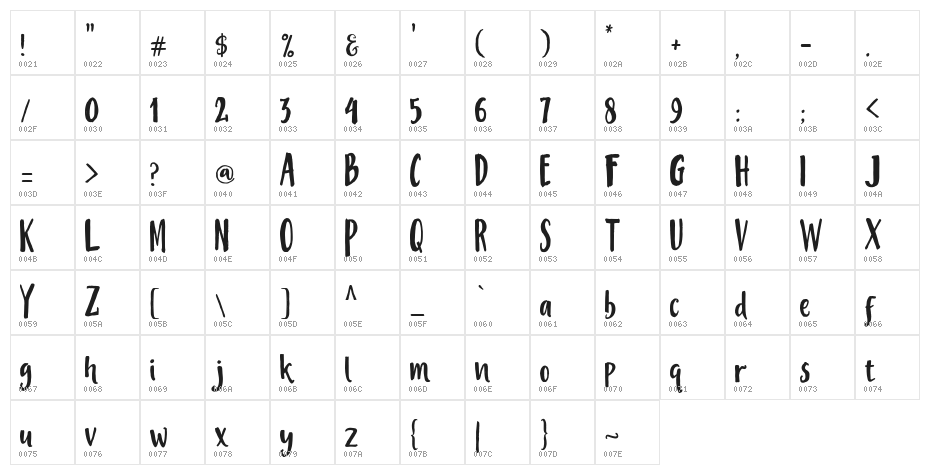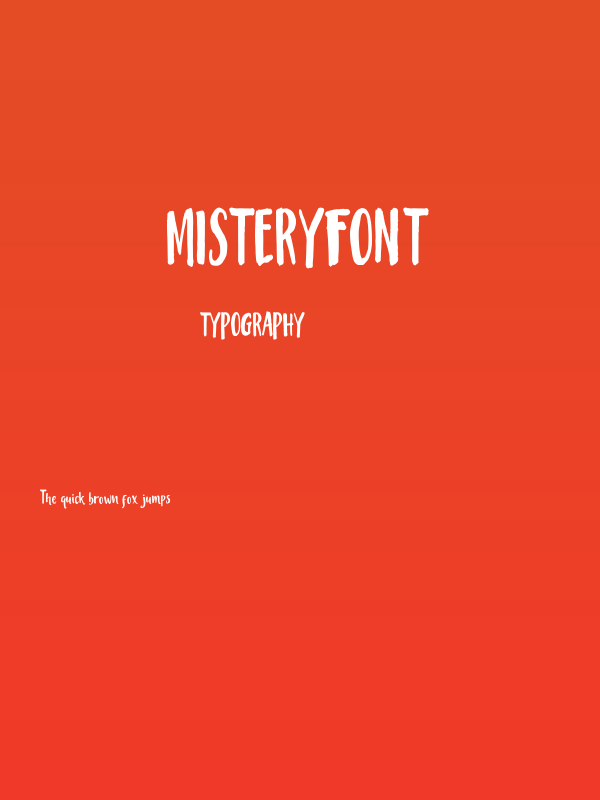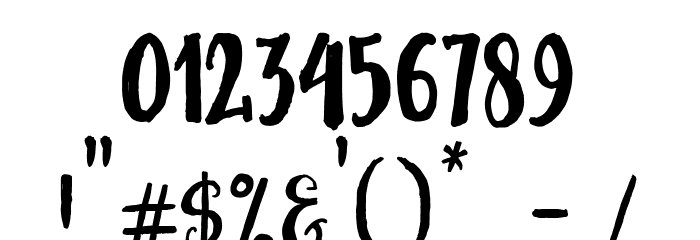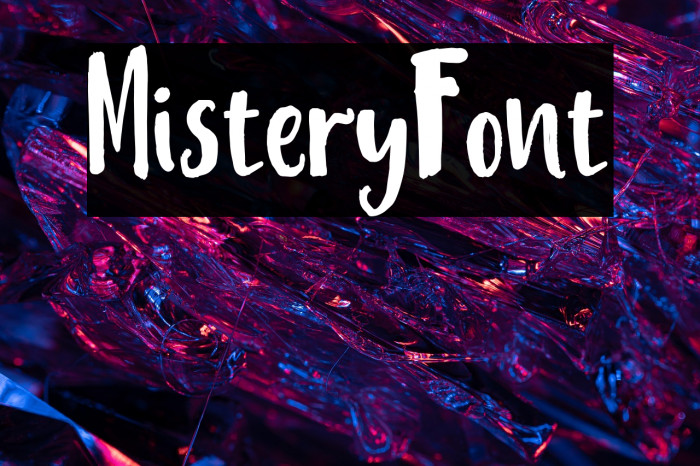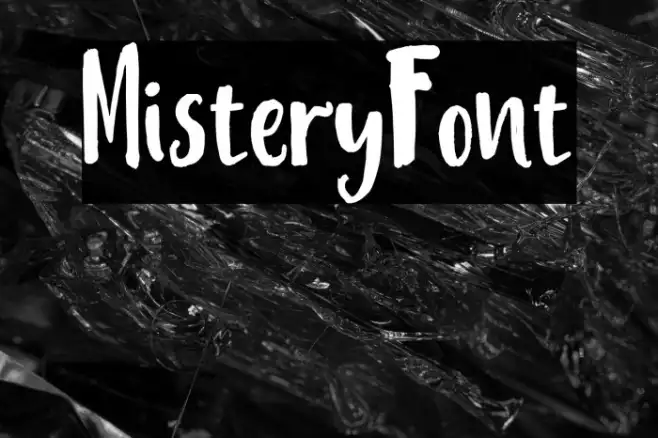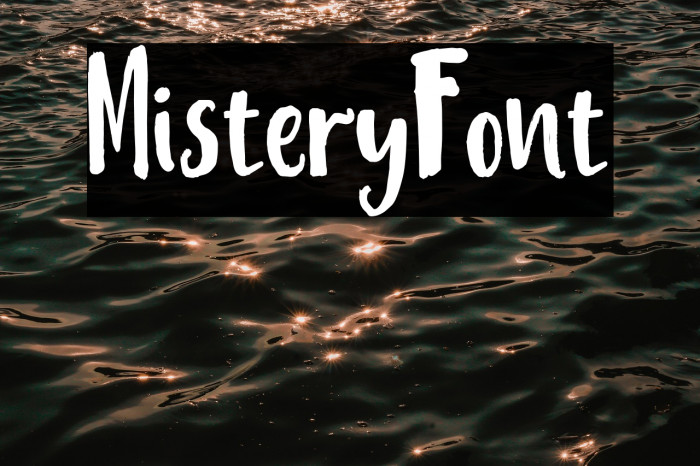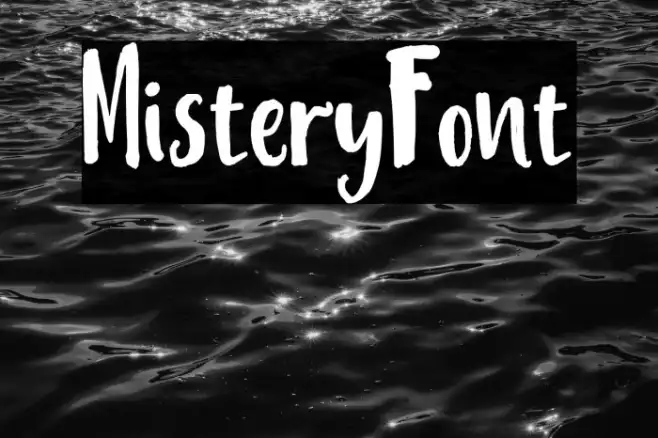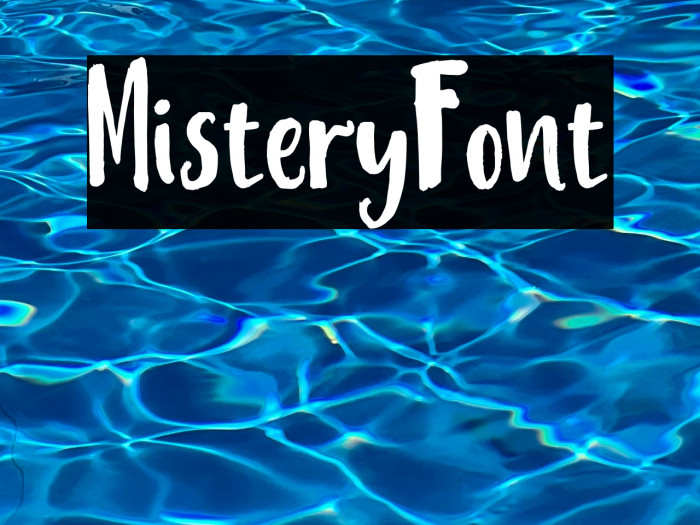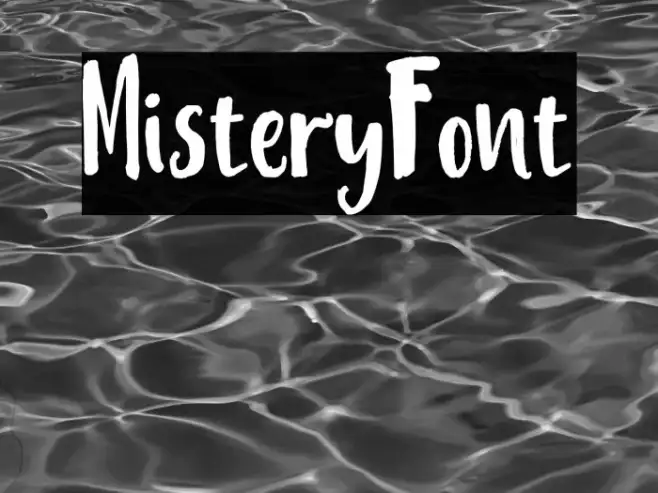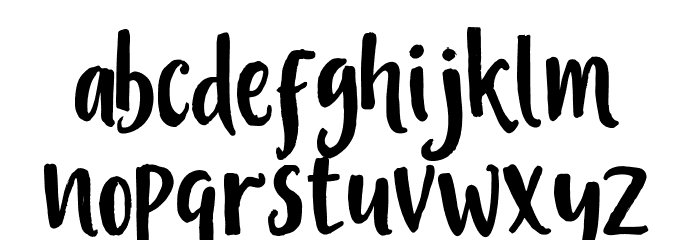
MisteryFont Font
MisteryFont Description
This font features a bold and expressive handwritten style, characterized by its thick strokes and slightly irregular shapes. The letters have a playful and artistic feel, with a dynamic flow that suggests movement and creativity. The uppercase and lowercase letters maintain a consistent style, while the numbers and special characters complement the overall design. The font's unique personality makes it stand out, offering a sense of individuality and charm.
| Proposed Projects | Ideal for creative projects such as posters, invitations, branding, and social media graphics where a personal touch is desired. |